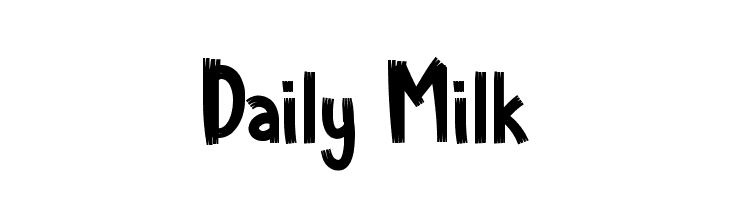
A bold, modern typeface with strong geometric forms and uniform stroke width.
A bold, geometric font with a futuristic and industrial design.
A bold, decorative font with a chiseled, textured appearance.
A shadowed italic font with a three-dimensional effect and moderate contrast.
A whimsical font with bold letters and a bunny illustration beside each character.
A modern, geometric outline font with consistent proportions and playful style.
A playful, handwritten font with a casual and approachable style.
A bold, decorative font with textured fills and thick outlines, perfect for dynamic displays.
A playful, decorative font with geometric elements and a modern touch.
A graceful script font with flowing, cursive strokes and elegant design.
设计师偏爱 ÉconoSans Reduced 85 Heavy, ZelegaZenega-Regular, ChiseledRound, Linux Biolinum Shadow Italic and KR Mr. Bunny,因为其造型干净、适用范围广—— 从品牌识别到落地页、海报都能胜任。